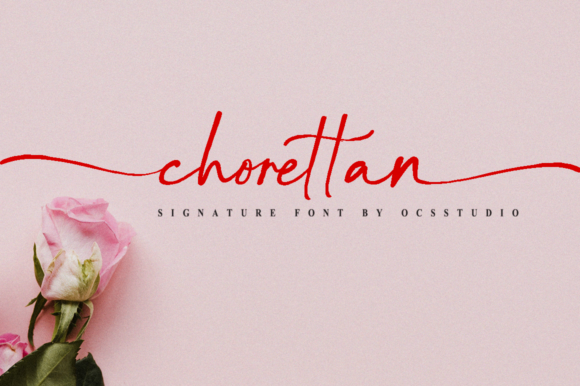
Dive into the world of Chorettan Font, a captivating signature-style script typeface that breathes life into your designs with its natural hand stroke. As a masterpiece from OCS Studio, Chorettan is an exquisite script font family, meticulously crafted to bring a touch of elegance and authenticity to your creative endeavors.
Unleash your creativity and make a statement with Chorettan's distinctive charm. Its flowing lines dance across the page, evoking a sense of individuality and authenticity that resonates with your audience. Whether you're designing logos, crafting invitations, or creating unique T-shirts, Chorettan adds a touch of sophistication and personality that sets your work apart.
With Chorettan, you'll discover a versatile font that complements a wide range of design projects. Its graceful curves and expressive strokes lend themselves effortlessly to everything from wedding invitations and branding materials to social media posts and product packaging. Let Chorettan's timeless beauty elevate your designs and leave a lasting impression on your audience.
Embrace the artistry of Chorettan and embark on a creative journey where your imagination knows no bounds. Its natural hand stroke adds a human touch to your designs, forging an emotional connection with your audience that resonates deeply. Each letterform is a work of art, carefully crafted to convey emotion and authenticity.
Don't settle for ordinary fonts that blend into the background. Choose Chorettan and let your designs shine with originality and flair. Its unique style commands attention, inviting your audience to explore the depths of your creativity. Whether you're a seasoned designer or just starting, Chorettan is the perfect font to elevate your projects and leave a lasting impact.
Step into the realm of creative expression with Chorettan Font. Its enchanting script typeface will transform your designs into captivating works of art. Experience the magic of Chorettan and unlock a world of endless possibilities.